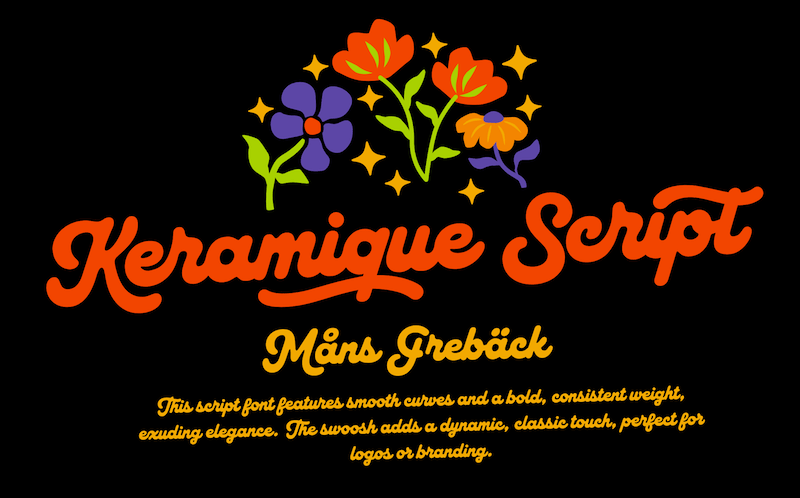
NOTE: This font is for PERSONAL USE ONLY! To purchase a commercial license, visit: https://www.mansgreback.com/product/keramique-script Keramique Script friendly cursive font, designed with a smooth feel and playful look. Perfect for a menu in a rustic diner, or to stamp your homemade ceramics. Use underscore _ to make a swash under any word. Example: Hea_rt Use multiple underscores to make longer underlines. Example: Hand___made For questions, please visit www.mn.sg/faq |